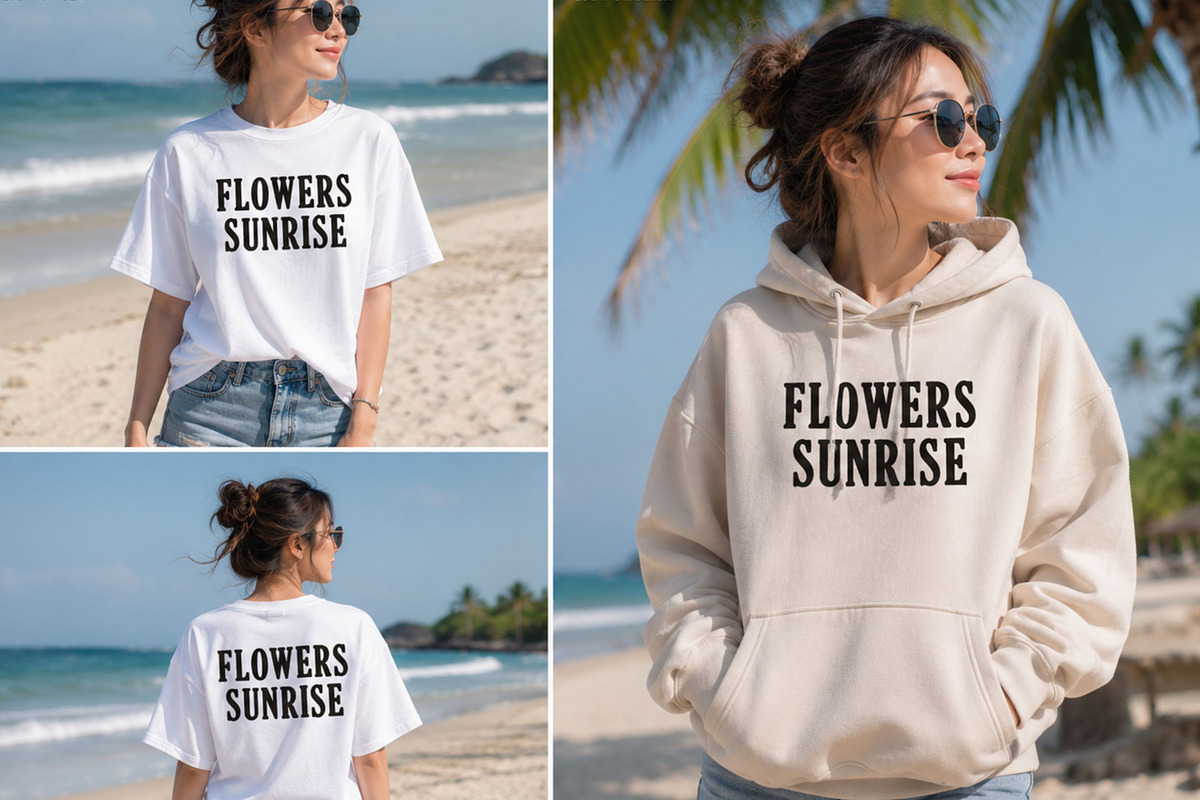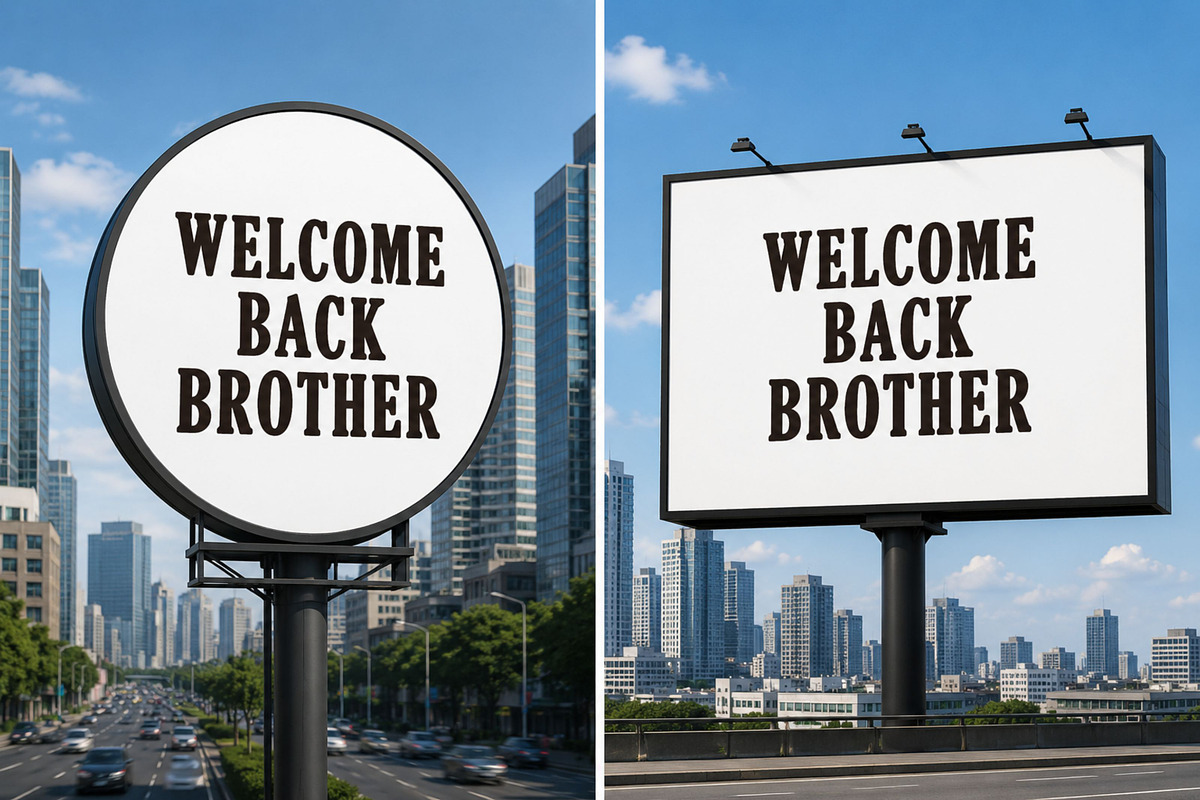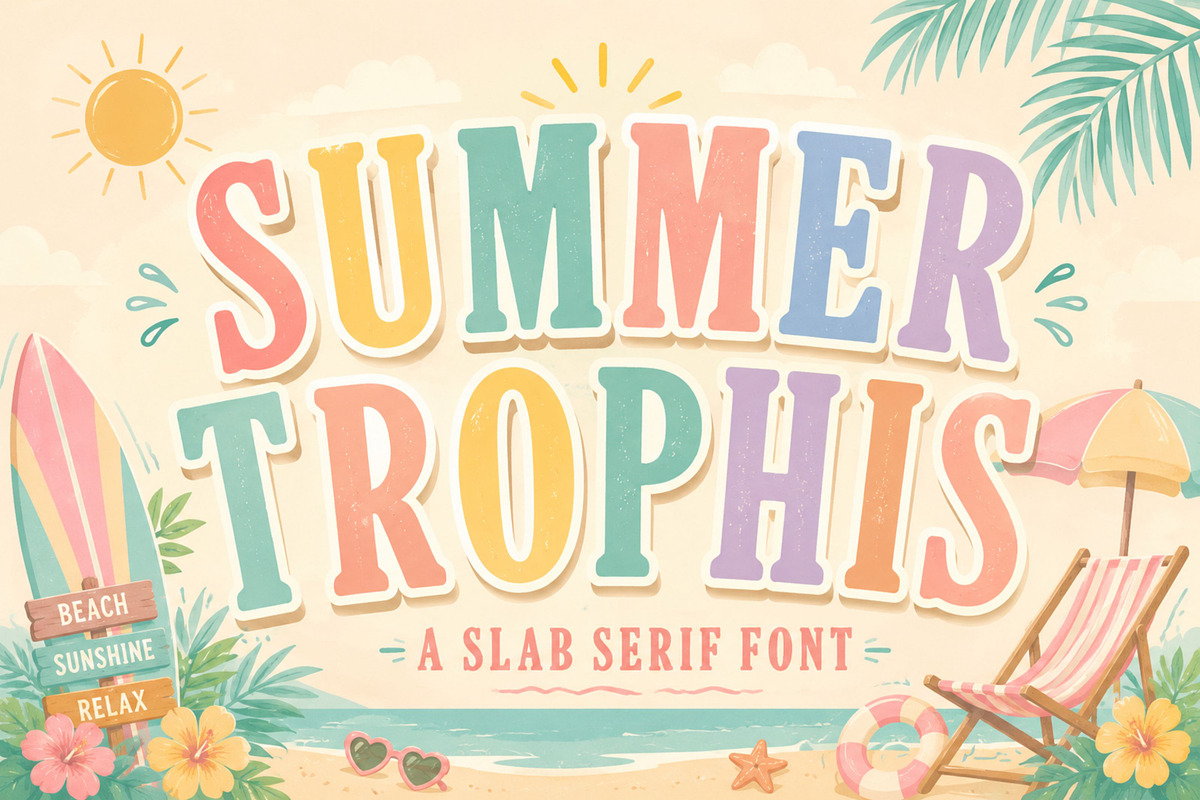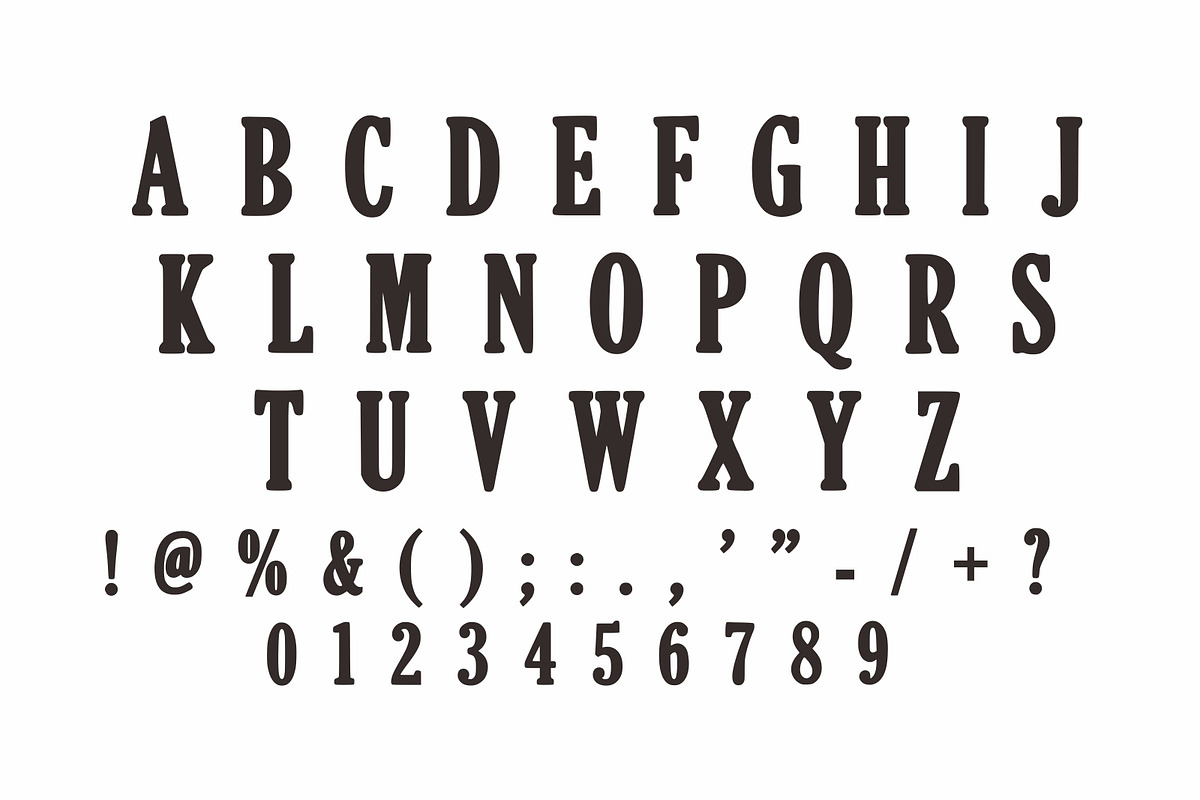
Summer Trophis
Bring sunny vibes to your designs with Summer Trophis, a playful tropical slab serif font inspired by beaches, palm trees, and summer holidays. Its bold letterforms and handcrafted texture make it ideal for eye-catching headlines and creative projects.
Summer posters and flyers
Beach and tropical branding
T-shirt and merchandise designs
Kids and playful projects
Invitations and greeting cards
Packaging and labels
Cricut and sublimation projects